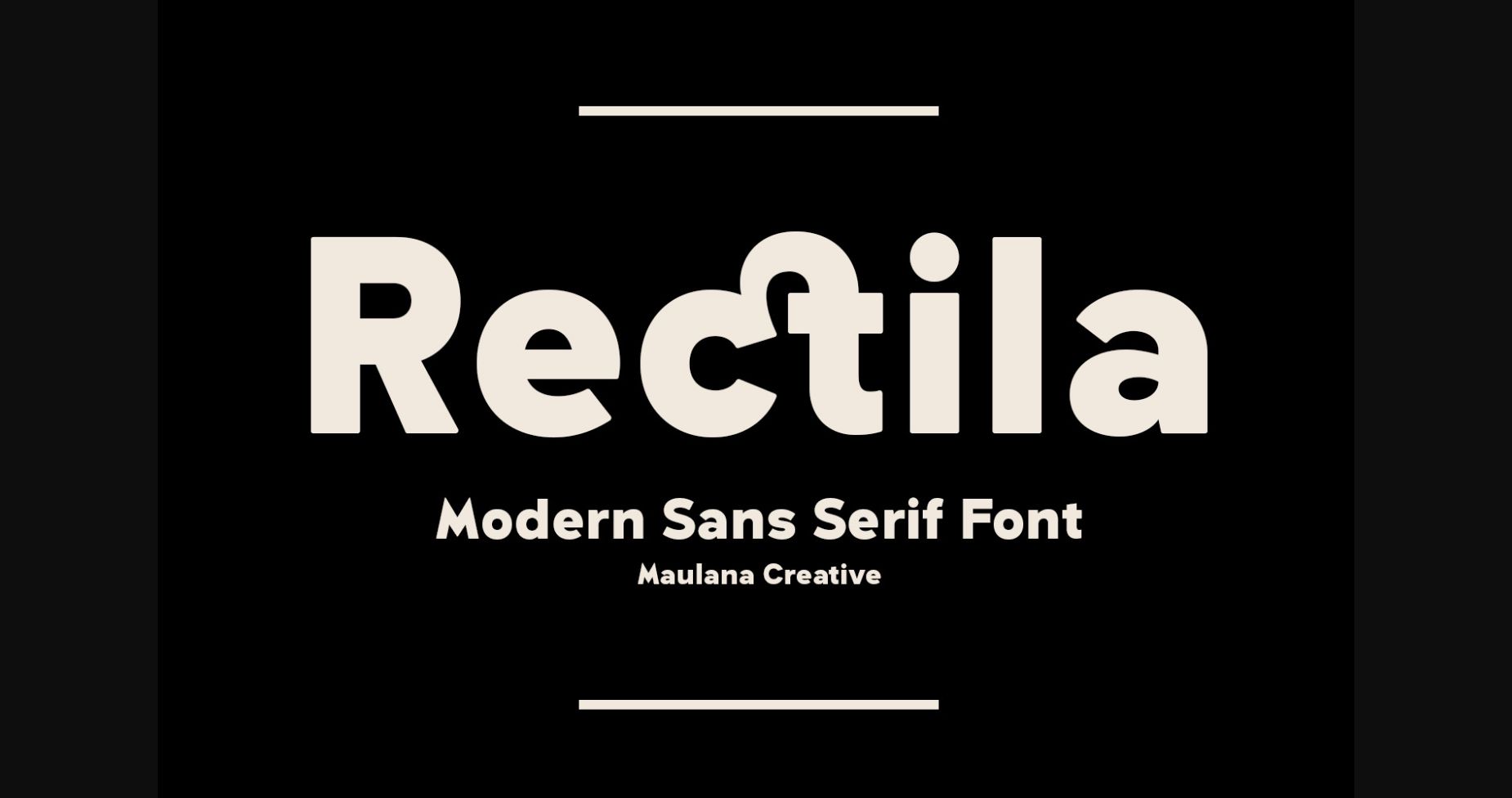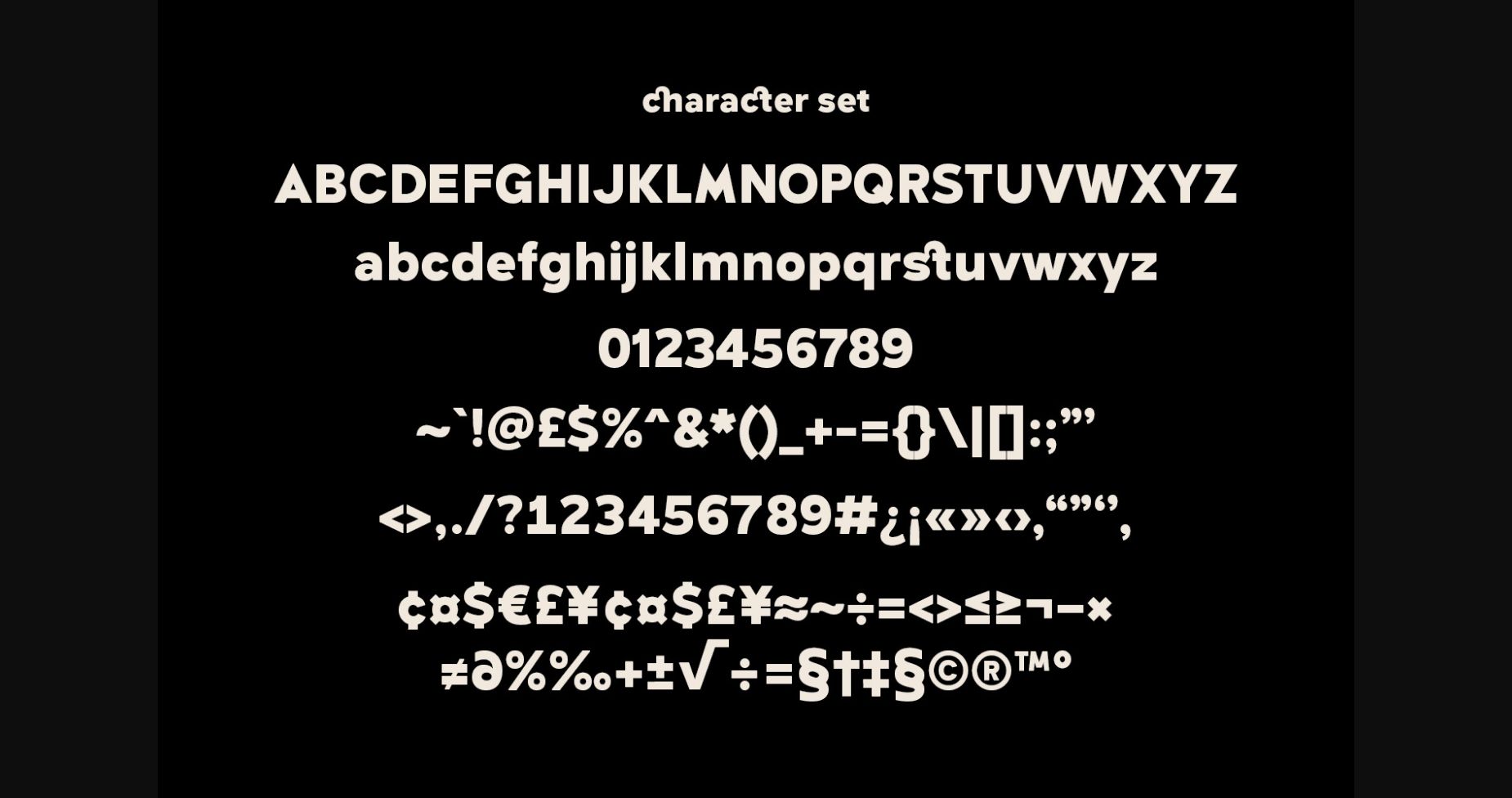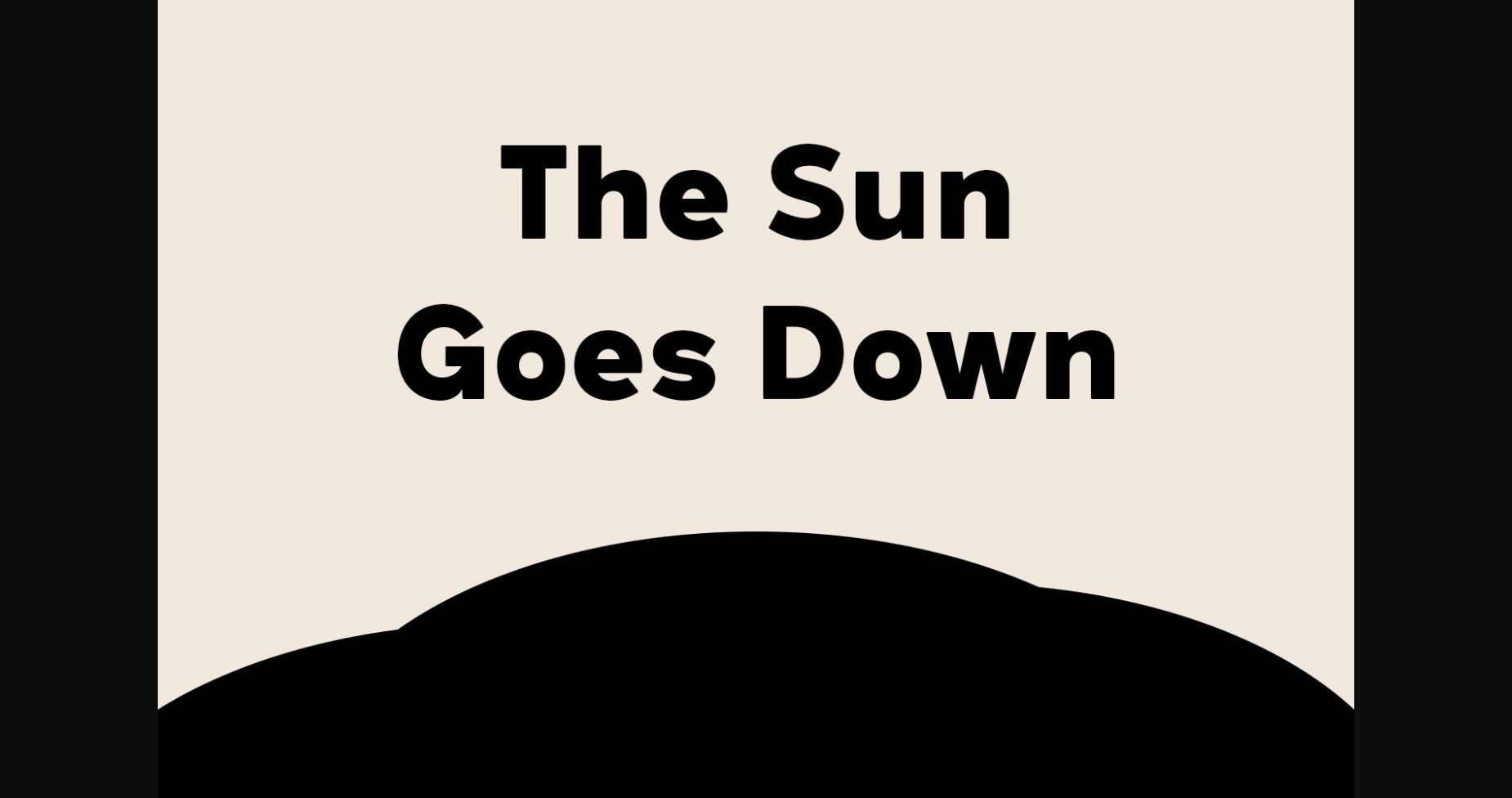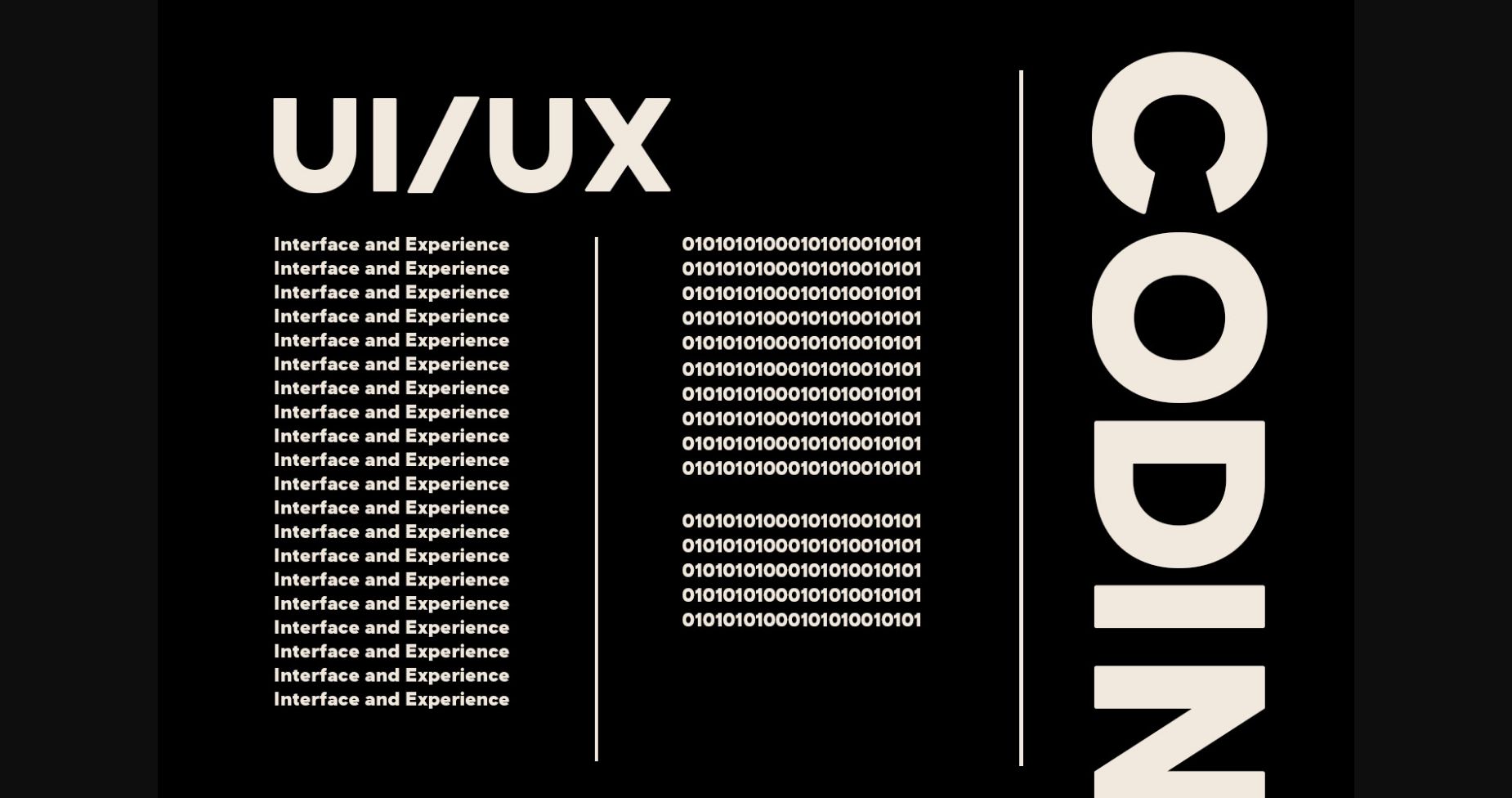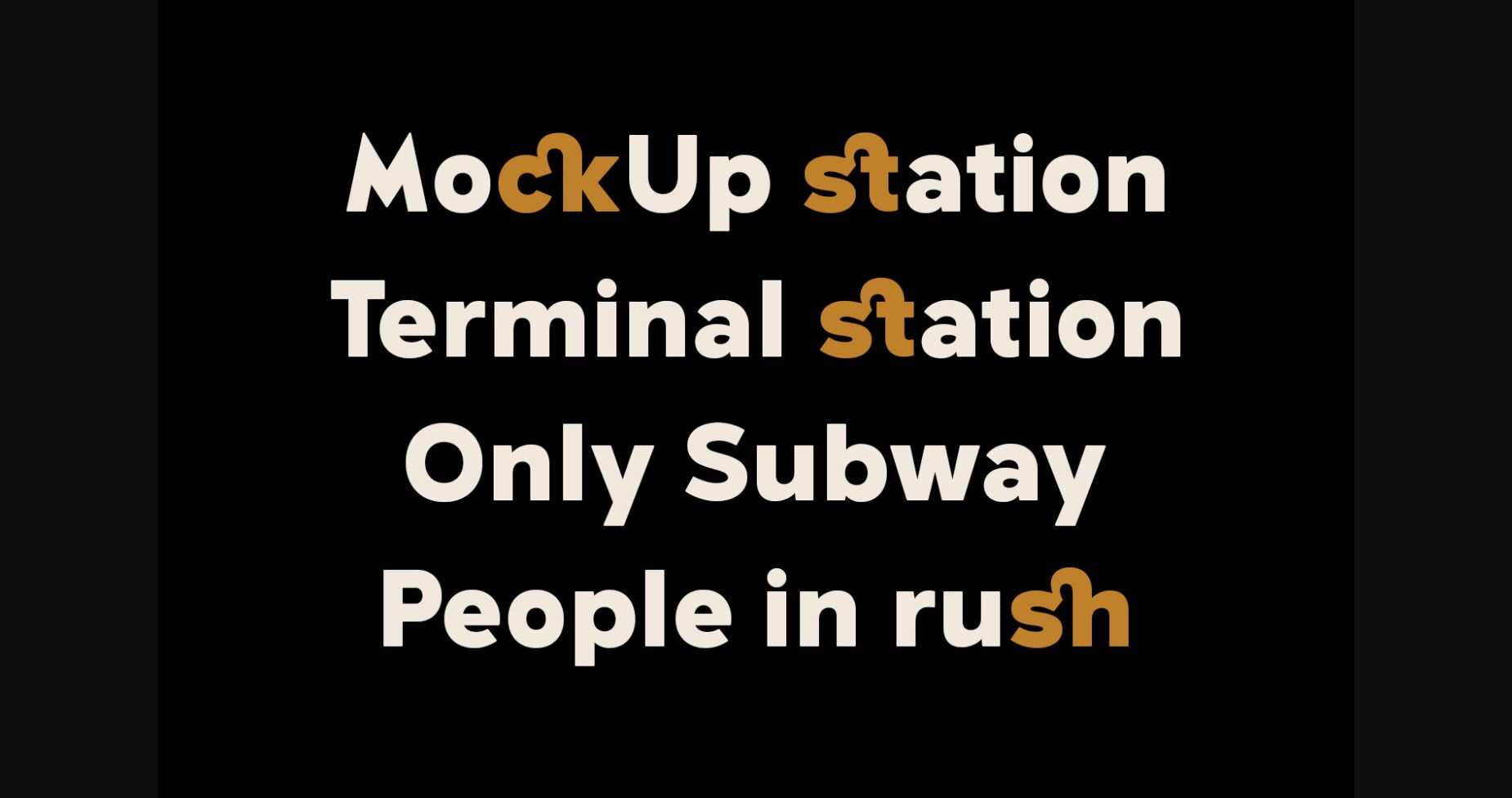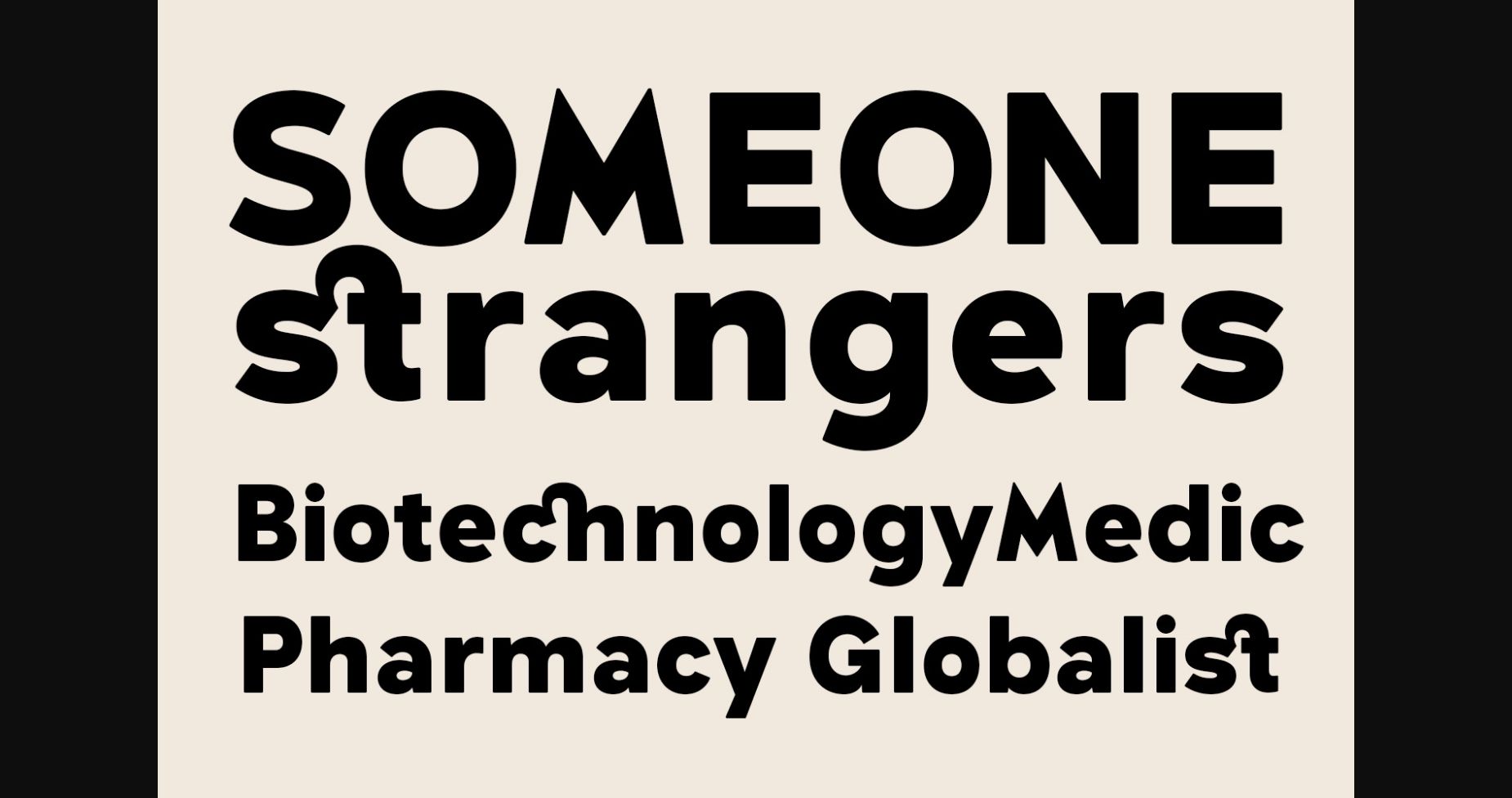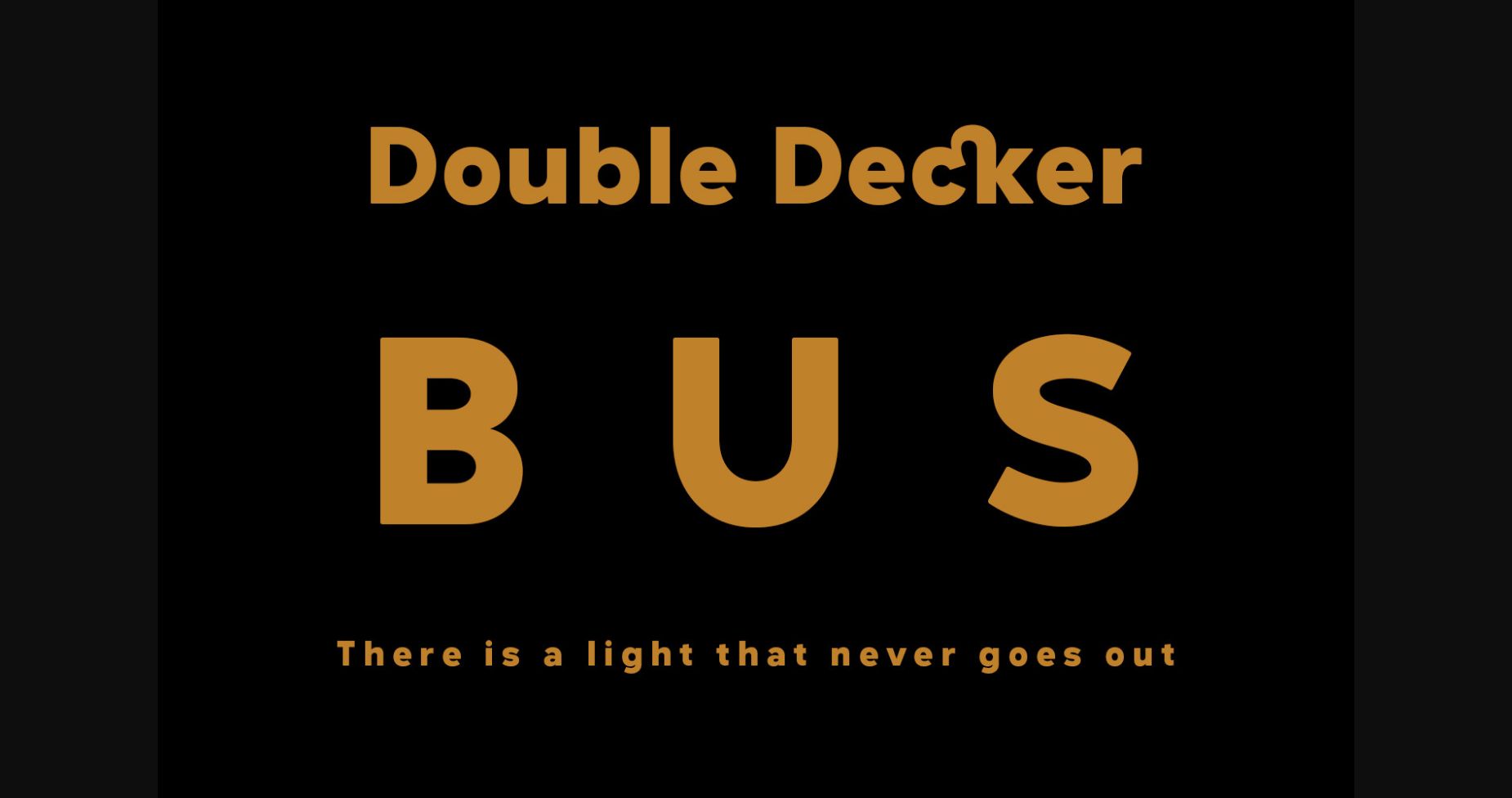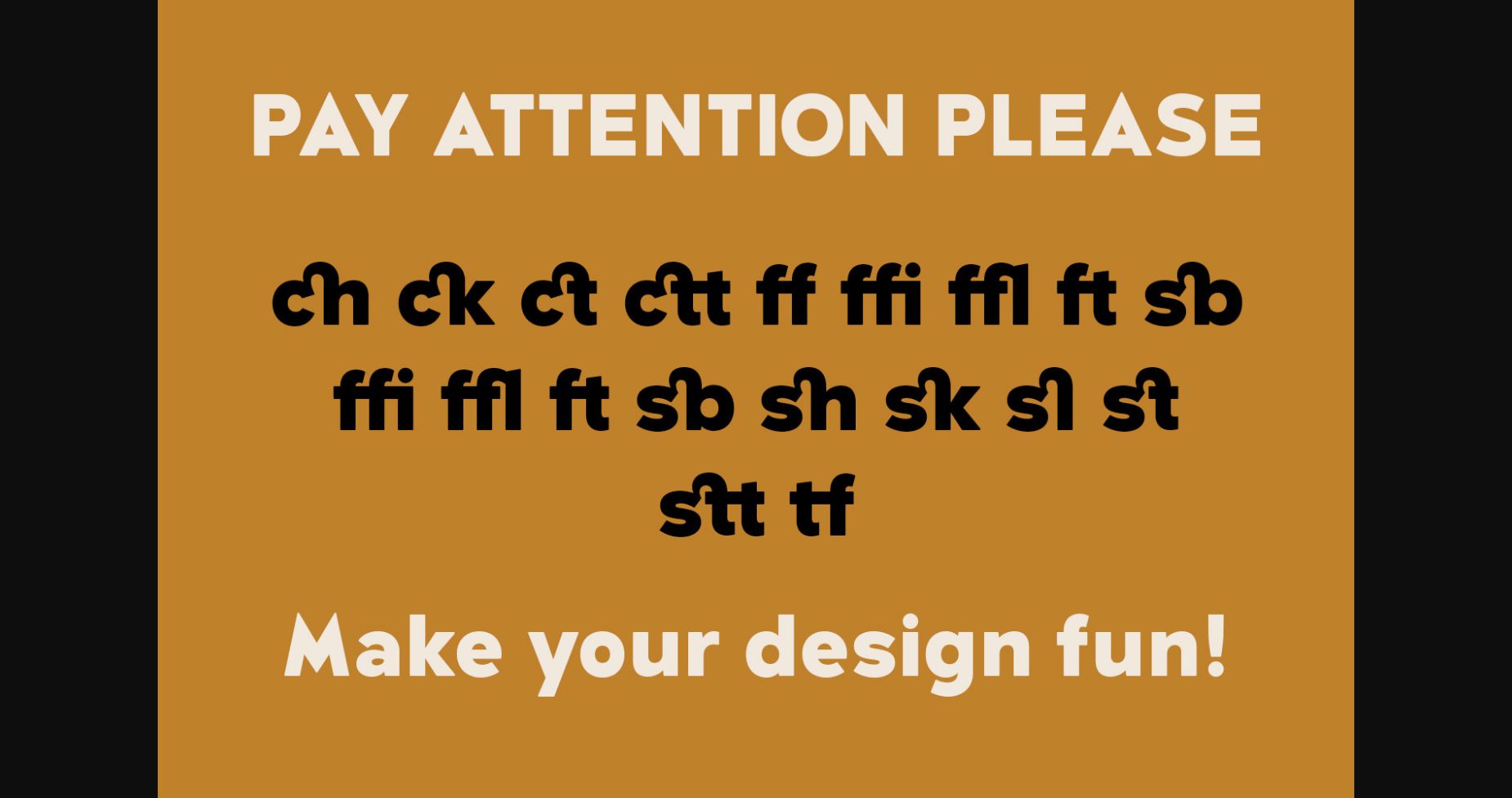
Rectila Font
About Rectila Font
Rectila is a semi-geometric sans serif font. Fall in love with its incredibly distinct and timeless style and use it to create spectacular designs!